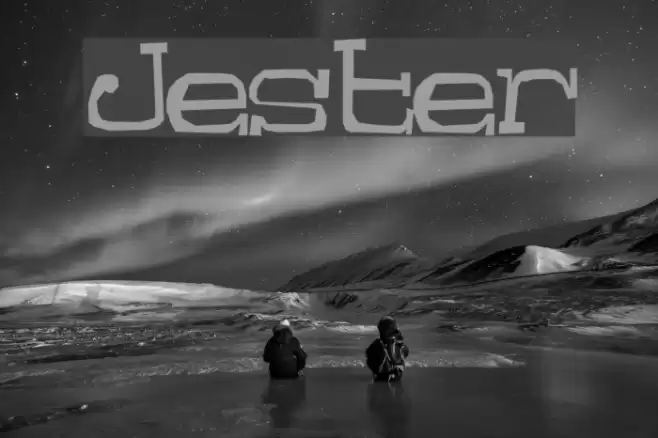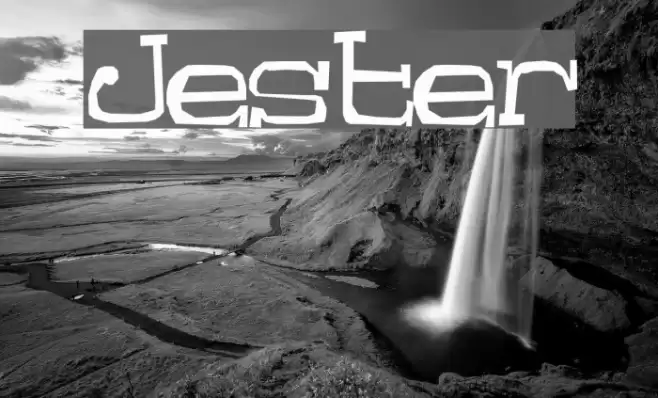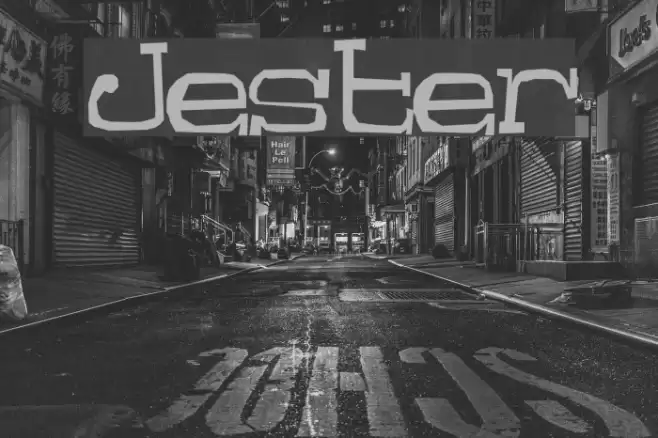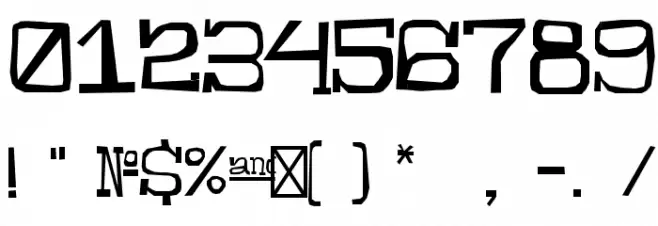
Jester Font
Jester Description
This font features a playful and whimsical design, characterized by its irregular and slightly distorted letterforms. The uppercase letters have a unique, almost hand-drawn quality, with varying stroke widths and quirky angles that give it a lively appearance. The lowercase letters maintain this playful style, with some characters having exaggerated curves and loops. The numerals are bold and distinct, following the same irregular pattern, which adds to the overall charm. Special characters are creatively designed, fitting seamlessly with the rest of the font. This font's distinctive style makes it stand out, perfect for projects that require a fun and unconventional look.
A playful and whimsical font with irregular, hand-drawn letterforms from Cartoon fonts.
- Proposed Projects: Ideal for children's books, playful branding, party invitations, and creative posters.
- Overall Style: Playful